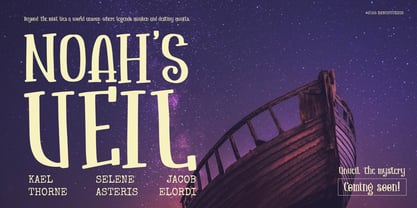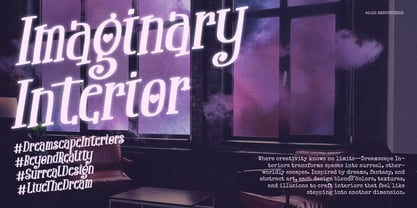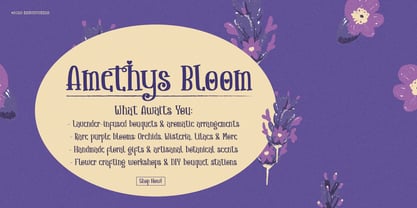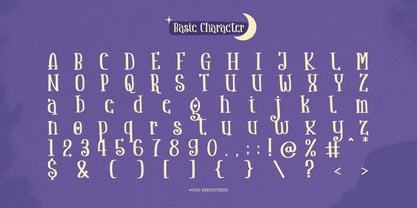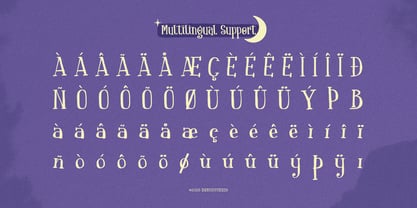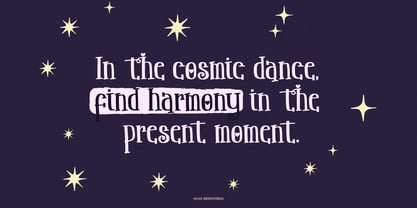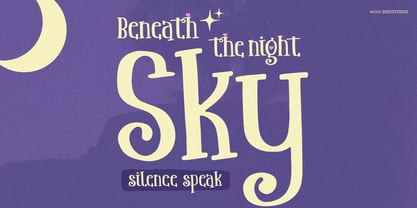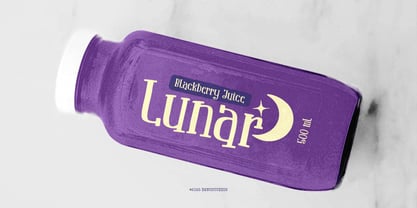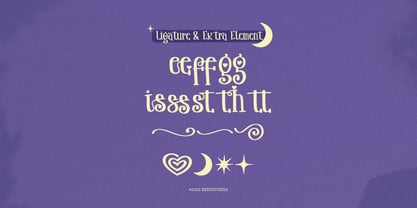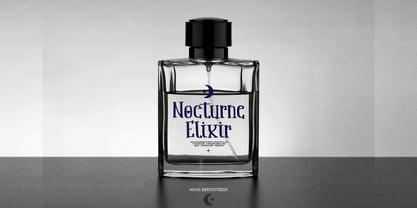
Phantom Glowing
by Denustudio
The Phantom Glowing Font Family was designed by Dede Nugraha and published by Denustudio. Phantom Glowing contains 2 styles and family package options. More about this family
Phantom Glowing | Quirky Handwritten, from Denustudios, suitable for any projects such as: logos, branding projects, homeware designs, product packaging, mugs, quotes, posters, shopping bags, t-shirts, book covers, name card, invitation cards, greeting cards, label, photography, watermark, special events, and all your other lovely projects that need Quirky Handwritten a taste.
• Regular and Italic
• Standard glyphs
• Alternate and Ligature
• Fonts include multilingual support